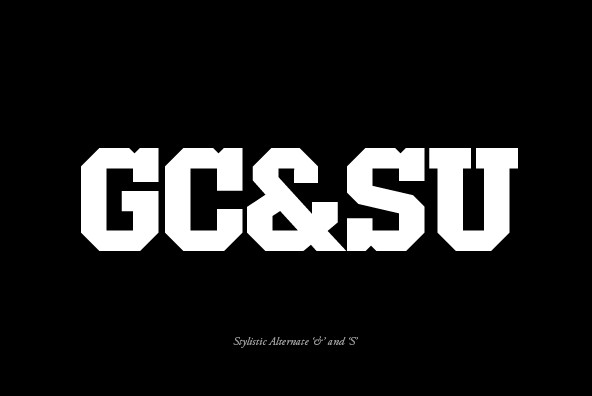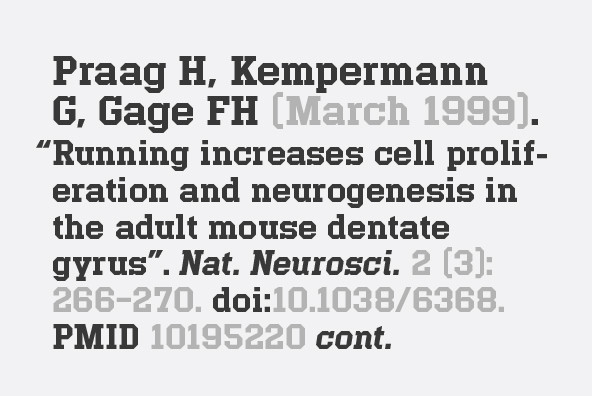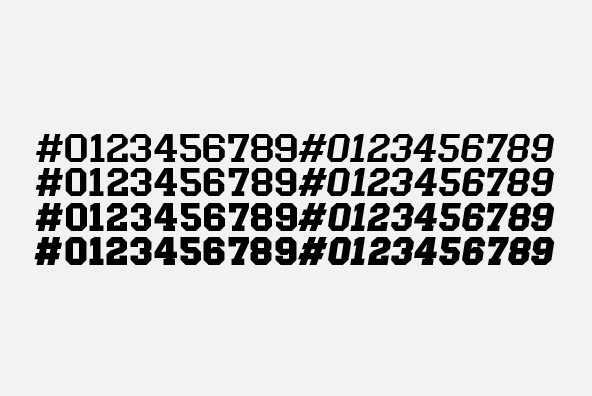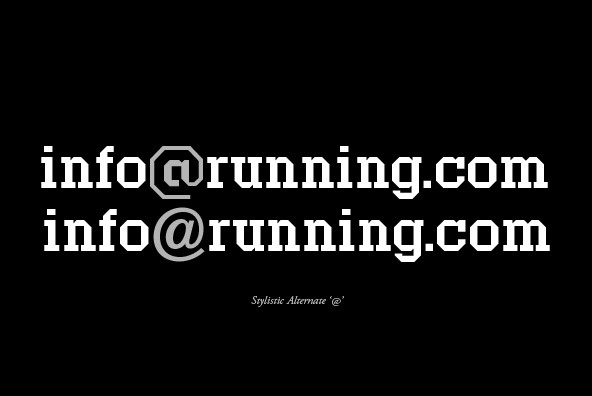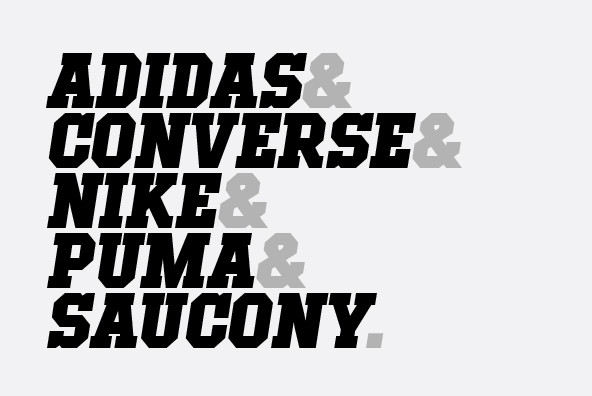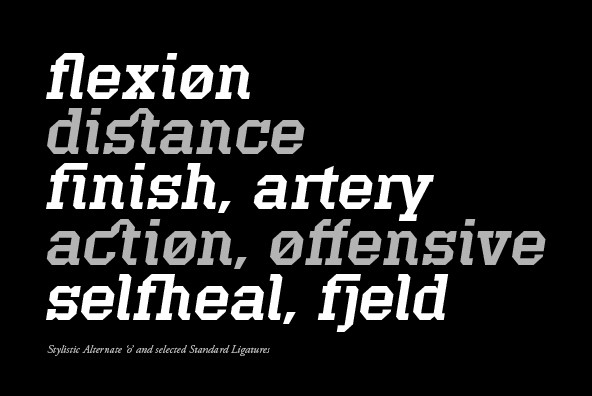
Offense
Offense is an unyielding rectangular slab-serif face designed with consistently balanced letterforms and a refined finish. It's extremely angular geometric form commands attention in display settings, yet is also legible in short text blocks. Numerous alternate character sets allow room for customization, while the expanded ligatures push letter combinations to the limit. Stylistically, Offense's almost crude, sharp-cornered construction is balanced by it's sophisticated finish and attention to detail, often unrealized in similar faces of this genre. The upright weights are complimented by pairings of true italics, completely rebuilt, slightly narrower in width with modified letterforms, increasing their contrast and flow. Features include: Precision kerning Standard Ligatures set including 'f' ligatures (fi, fl, ff, fh, fj, ffl, ffi, ffj) Discretionary Ligatures set including (ft, rt, ae, oe, st, ft, ct, oc, oo, ry, AE, OE, AL, TH, HE, AK, AN, TT, HD, AM, AP, AR, NF, NE, NH, NL, NB, FL, ND, FE, AB, OB, OD, OF, OG, OH, OK, OL, OM, ON, OO, OP, OQ, OR, OU, AH, UE, UF, UB, UD, UH, UK, UL, UM, UN, UP, UR, UU, MP, XY, YX, KY, WY, VY, AF, FF, FI) Alternate characters (O, o, S, s, a, h circumflex, @, ®, ¶, $, &, _, and various ligature alternates) Case forms (shifts various punctuation marks up to a position that works better with all-capital sequences) Capital Spacing (globally adjusts inter-glyph spacing for all-capital text) Slashed zero Full set of numerators/denominators Automatic fraction feature (supports any fraction combination) Extended language support (Latin-1 and Latin Extended-A) *Requires an application with OpenType and/or Unicode support.